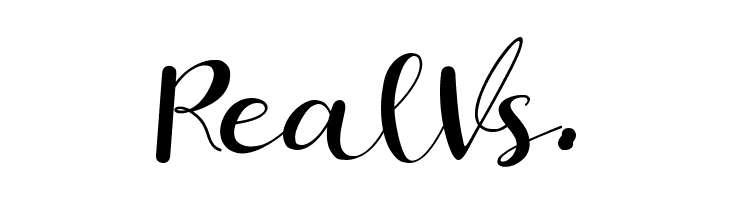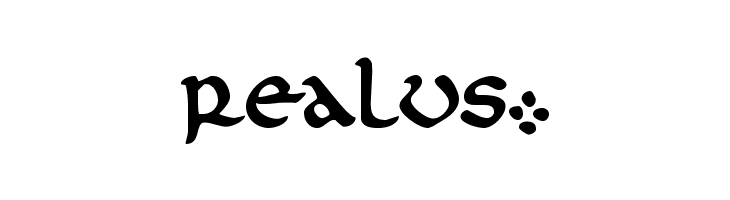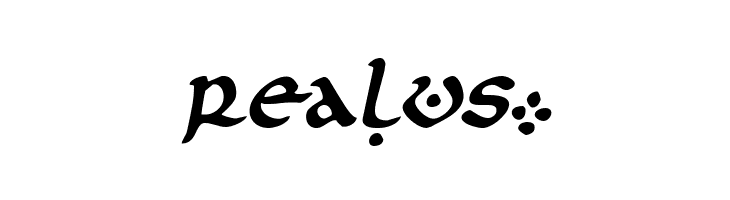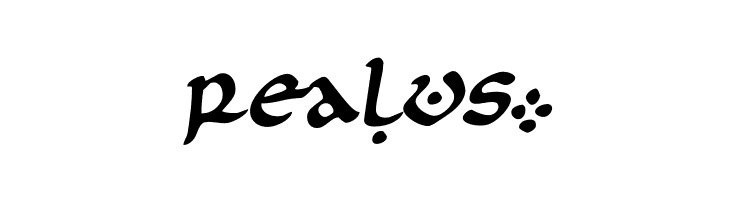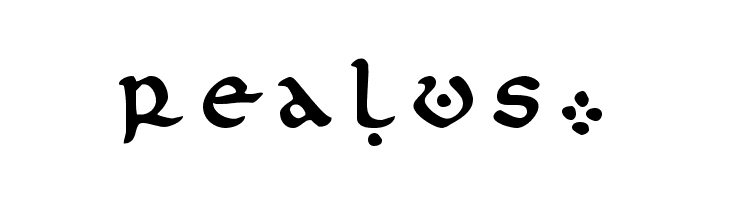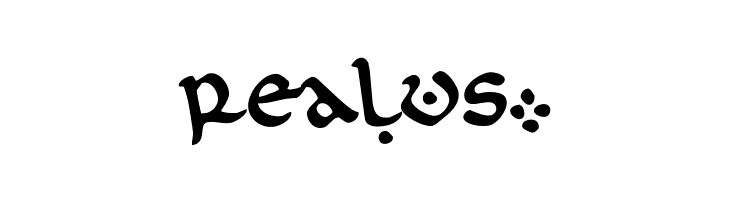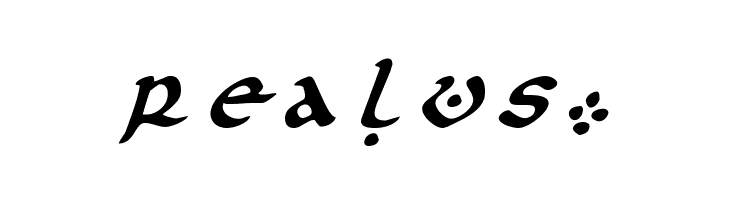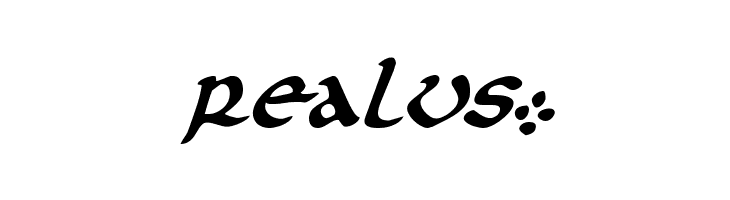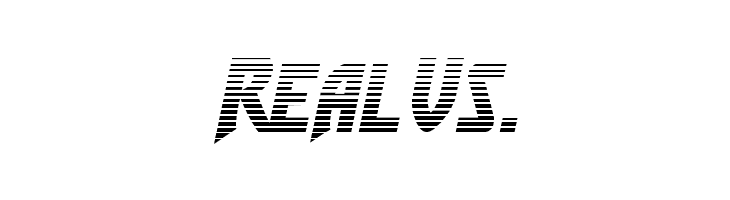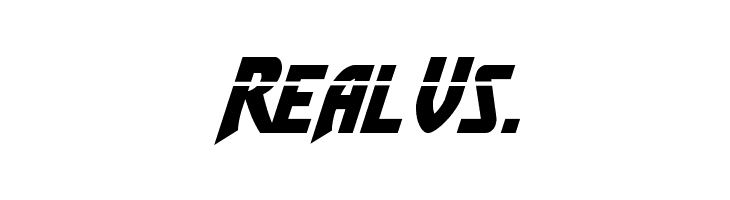
An artistic, medieval-inspired font with decorative flourishes and modern elegance.
A bold, medieval-inspired font with flowing strokes and distinctive curves.
A whimsical, calligraphic font with dynamic curves and varying stroke widths.
A dynamic, flowing script font with bold strokes and an elegant italic slant.
An artistic, calligraphic font with elegant curves and dynamic slant.
A decorative, medieval-inspired font with bold, flowing strokes and intricate details.
A semi-italic, calligraphic font with flowing strokes and decorative serifs.
A playful, bold font with a unique shadow effect for a three-dimensional look.
A whimsical and artistic font with decorative elements and bold strokes.
A dynamic italic font with calligraphic influences and elegant curves.
A dynamic and elegant script font with flowing curves and bold strokes.
A bold, artistic font with irregular, fluid shapes resembling ink blots.
A bold, angular font with a dynamic, forward-leaning style.
A bold, 3D font with a dynamic, comic book style.
A bold, 3D italic font with dynamic and angular characters.
A bold, futuristic font with a 3D striped effect and sharp, angular design.
A bold, italicized font with a 3D effect and retro-futuristic style.
A bold, angular, and condensed font with a futuristic flair.
A bold, italic, and condensed font with a dynamic, futuristic style.
A bold, 3D engraved font with a dynamic, retro style.
A bold, angular font with a dynamic, energetic style.
A bold, italic, and expanded font with a dynamic and futuristic style.
A bold, futuristic font with a gradient effect and dynamic angular shapes.
A bold, italic font with a striped gradient effect, exuding speed and modernity.
A bold, dynamic font with sharp angles and a slanted, energetic style.
A bold, dynamic font with a halftone pattern and angular, slanted characters.
A bold, italic font with a dynamic, futuristic style.
A bold, angular typeface with a futuristic and dynamic style.
A bold, italicized font with sharp, angular edges and a futuristic style.
A bold, angular font with a dynamic, forward-slanting style.
A bold, dynamic outline font with a comic book style and angular, geometric shapes.
A bold, outlined, italic font with a dynamic and modern style.
A bold, dynamic font with a 3D effect and strong comic book style.